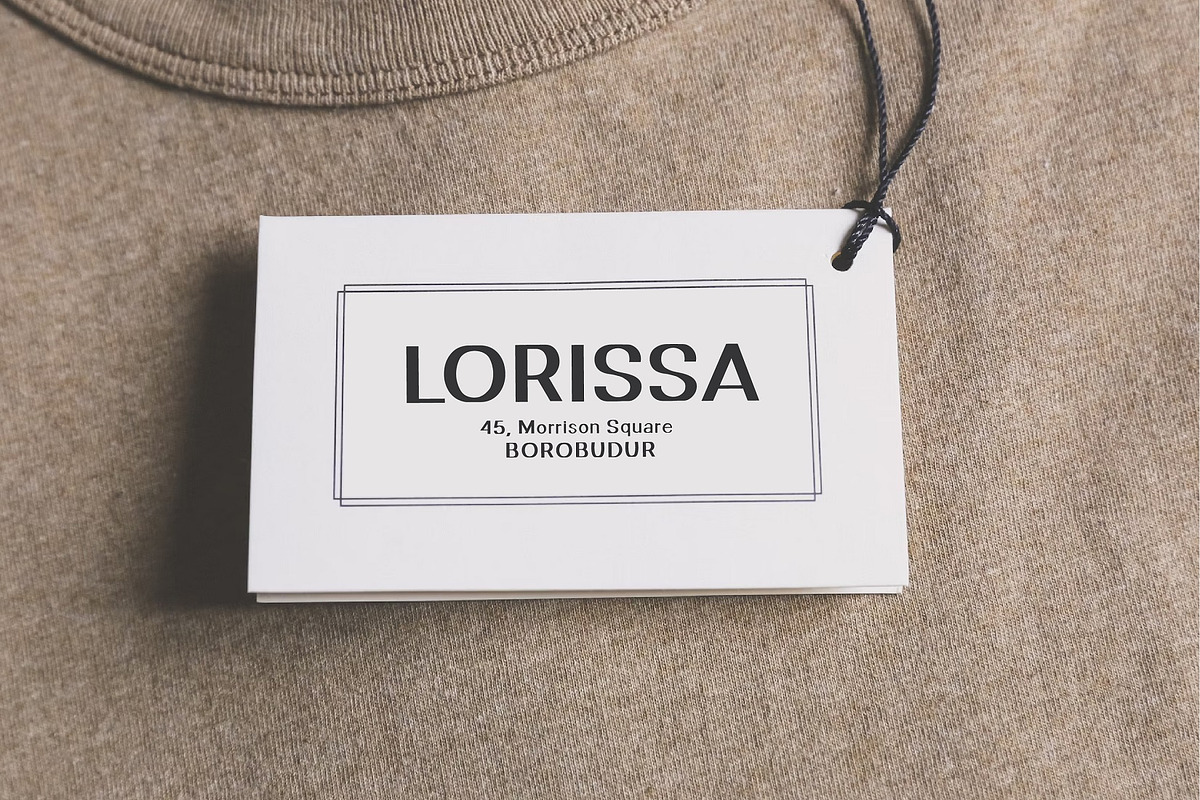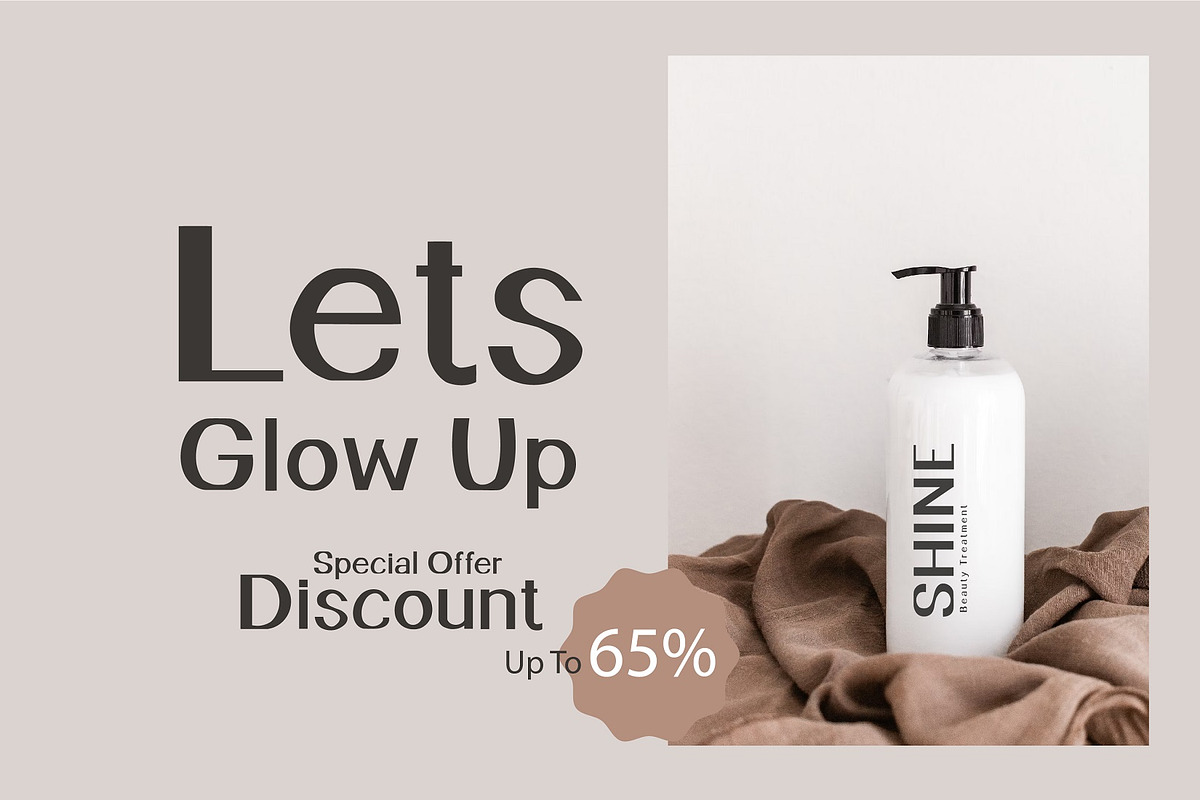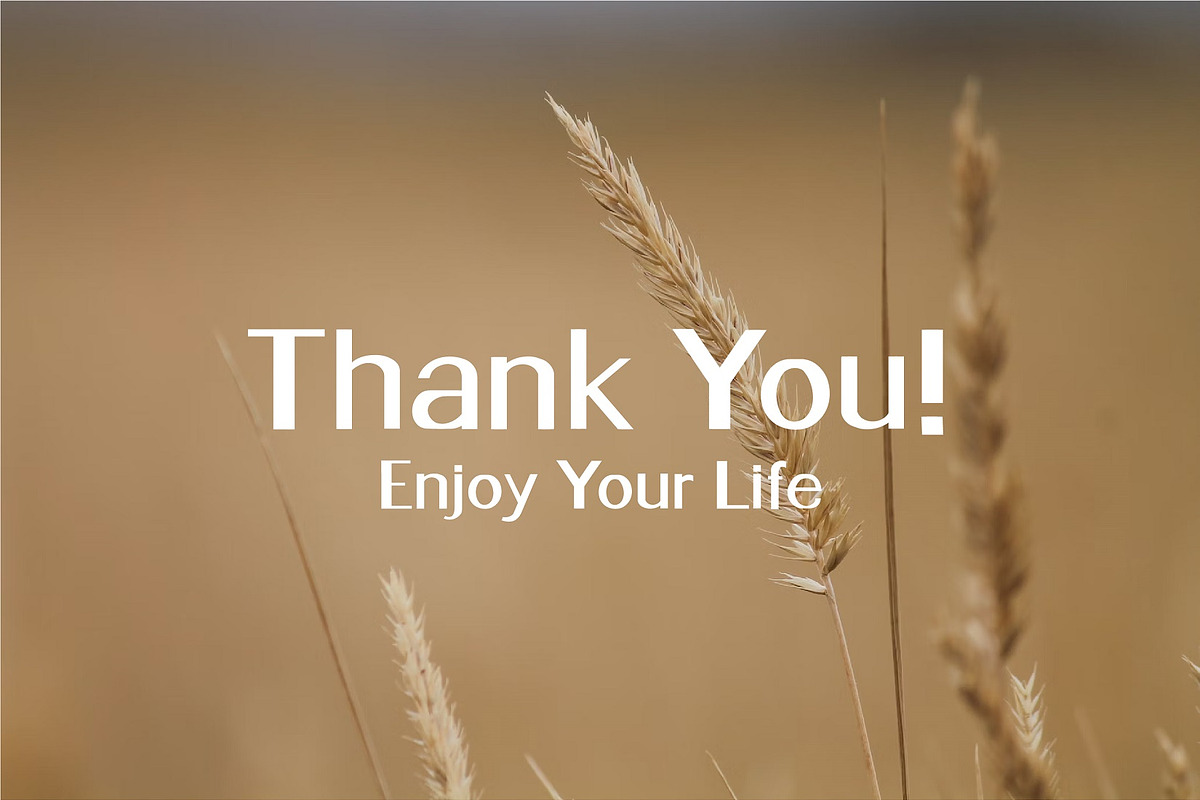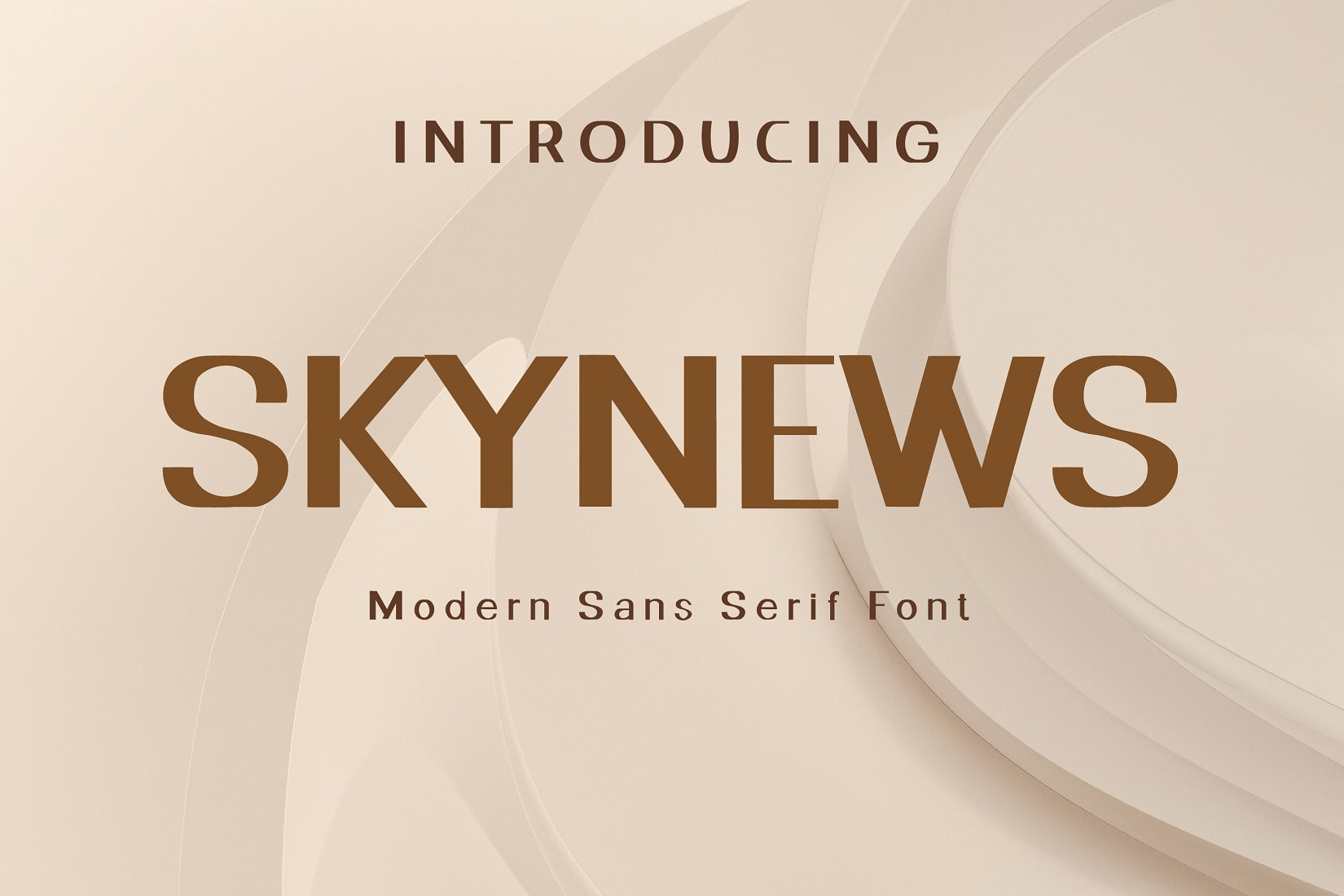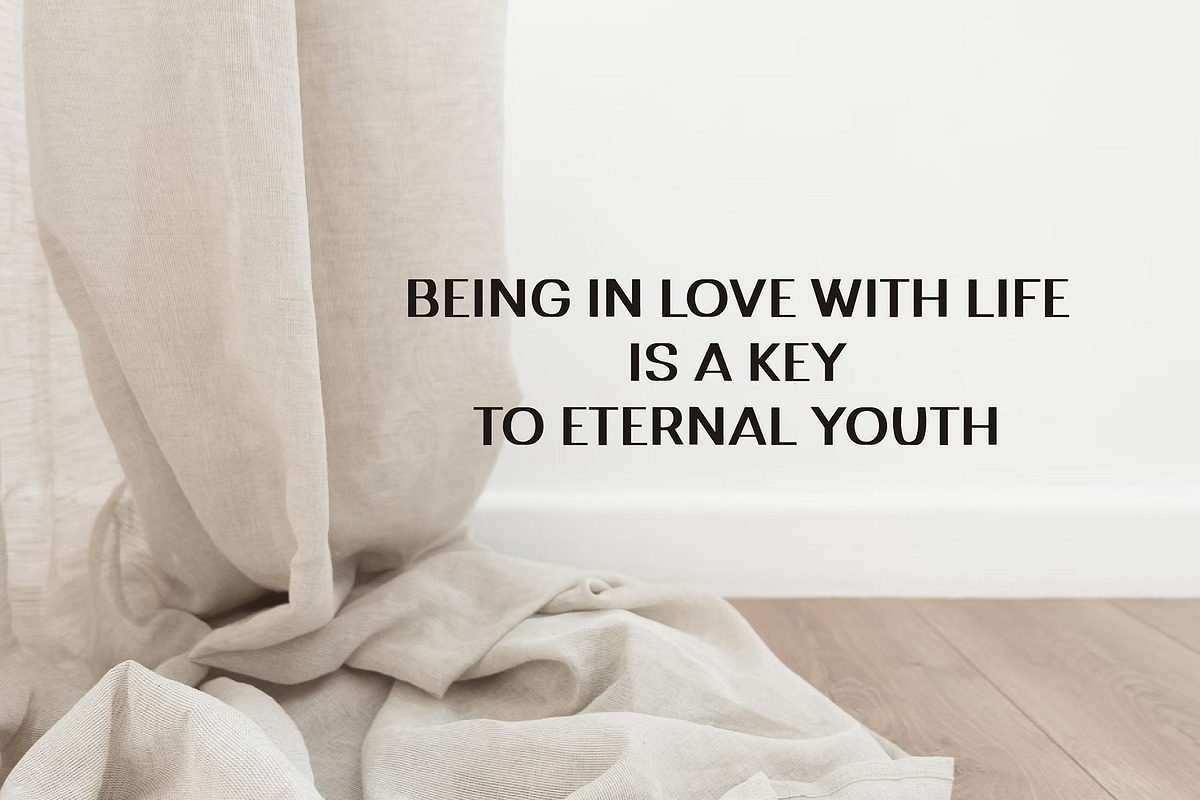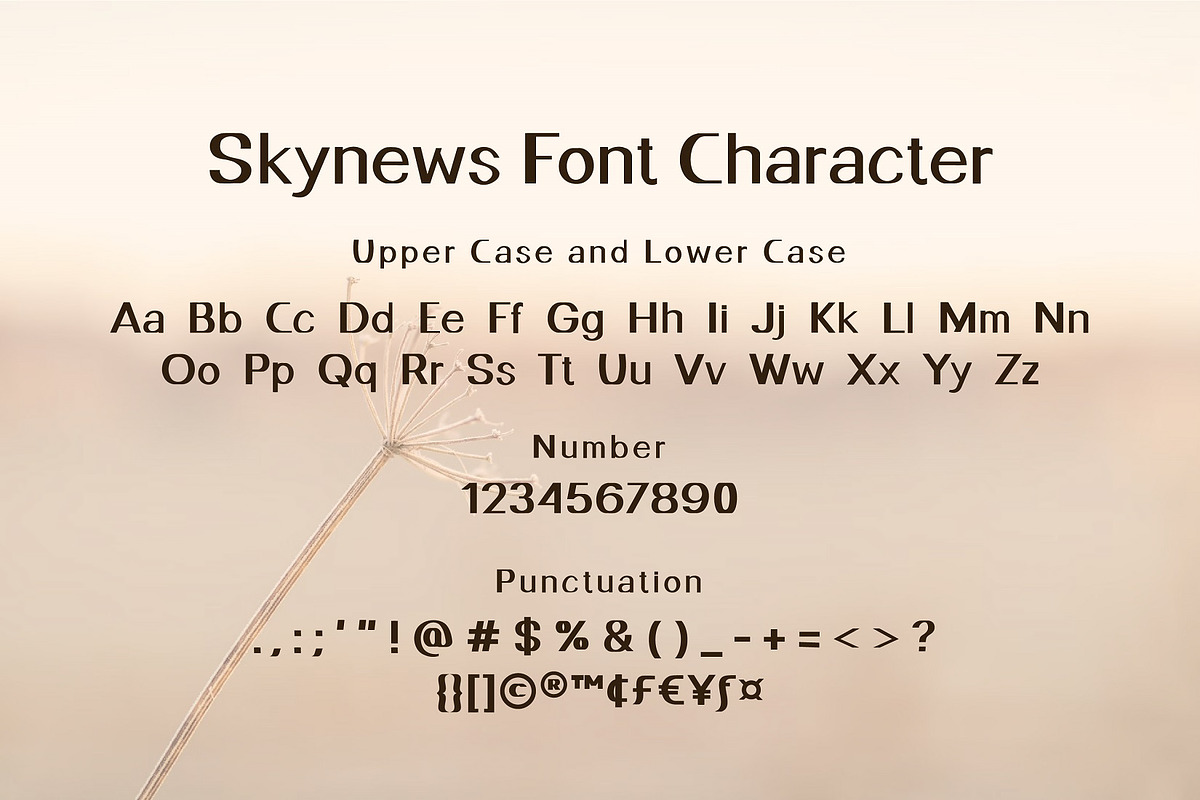
Skynews Modern Sans Serif Font
Introducing Skynews - Modern Sans Serif Font
Skynews is a modern sans serif font. Breadness good for logotype, label, badge, headline, signature, packaging and any more.